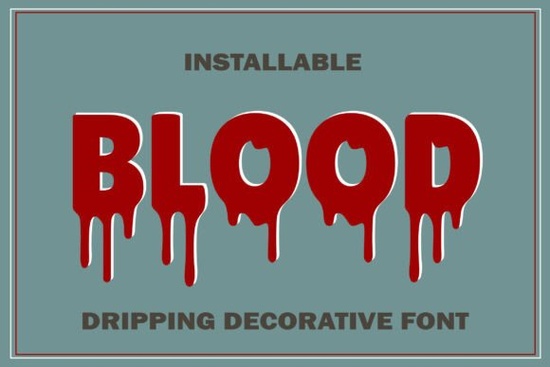
Designers, crafters, and small business owners looking for a unique way to add drama to their projects might find the Blood Drip Font to be a powerful tool. This bold and dramatic decorative font is inspired by dripping liquid effects, making it ideal for creating a chilling and eye-catching look. Whether you're working on Halloween decorations, horror-themed posters, or anything with a spooky vibe, this font can help bring your vision to life.
The Blood Drip Font stands out because of its flowing shapes and intense visual impact. It’s not just about the look it’s about the emotion it conveys. The font’s design makes it perfect for adding intensity and suspense to any composition. If you're looking for something that can make your designs feel more dynamic and engaging, this could be the right choice.
What Makes Blood Drip Unique?
Unlike standard fonts, Blood Drip uses a liquid-inspired style that adds depth and movement. This makes it especially effective for projects that require a sense of urgency or fear. The font's dark and striking atmosphere can elevate any design, whether it's for print, digital media, or social media content.
One of the key features of Blood Drip is its versatility. While it’s often used in horror and Halloween contexts, it can also work well for other creative projects that need a strong visual statement. Its boldness ensures that it commands attention without needing additional design elements to support it.
Best Uses for Blood Drip Font
This font works best in situations where you want to create a strong emotional response. For example, it’s great for:
- Halloween event invitations
- Horror movie posters
- Spooky-themed packaging or labels
- Print-on-demand merchandise with a dark aesthetic
If you're a small business owner or a creative hobbyist, using Blood Drip can help you stand out in a crowded market. It's especially useful if you're targeting audiences who appreciate bold, dramatic visuals.
Where to Use Blood Drip Font
For those who are new to typography, the font’s distinct style can help you create professional-looking designs without needing advanced skills. It’s also a good option if you’re looking for ways to differentiate your work from others in your niche.
How to Get the Most Out of Blood Drip
To use Blood Drip effectively, consider pairing it with simpler fonts for balance. For instance, using it as a headline while keeping body text in a more readable typeface can help maintain clarity without losing the dramatic effect.
Experimenting with color is another way to enhance the font’s impact. Dark reds, deep blacks, and contrasting colors can make the dripping effect more visible and striking. Don’t be afraid to test different combinations to see what works best for your project.
As you work with Blood Drip, remember that the goal is to enhance your message or design. It’s not just about the font itself, but how it contributes to the overall look and feel of your project. With the right approach, this font can become a valuable addition to your design toolkit.
Before finalizing your project, take a moment to review how the font interacts with other elements. Make sure it aligns with your brand or theme and that it doesn’t overpower the rest of your design. A little refinement can go a long way in achieving the desired effect.
Consider experimenting with different sizes and placements to see what works best. Sometimes, a smaller text size with a bold font can create a more subtle but impactful result. Keep an open mind and let the font guide your creative decisions.